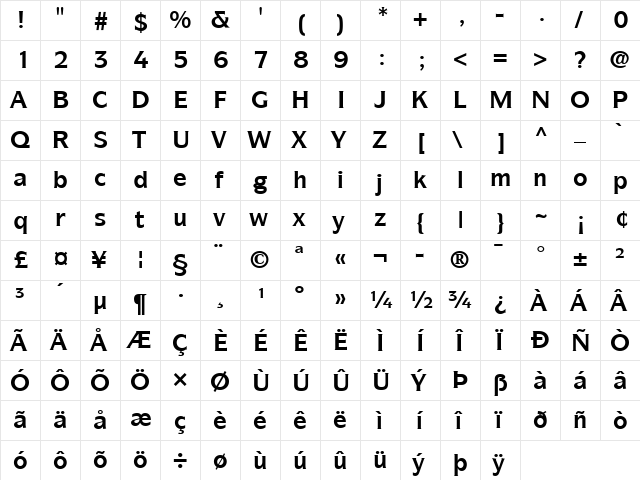
Symbol LT Book Bold
Design Context for Symbol LT Book Typeface
Symbol LT Book is a composed and adaptable typeface that performs quietly and consistently across a wide range of design contexts. Its bold stroke weight gives it real presence on the page.